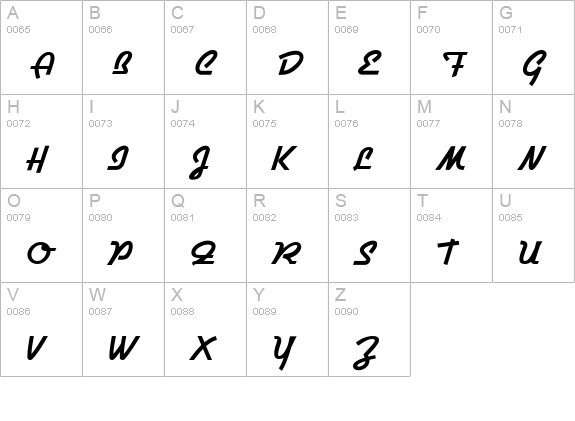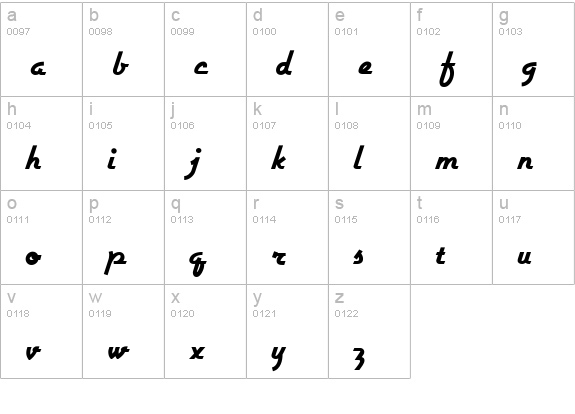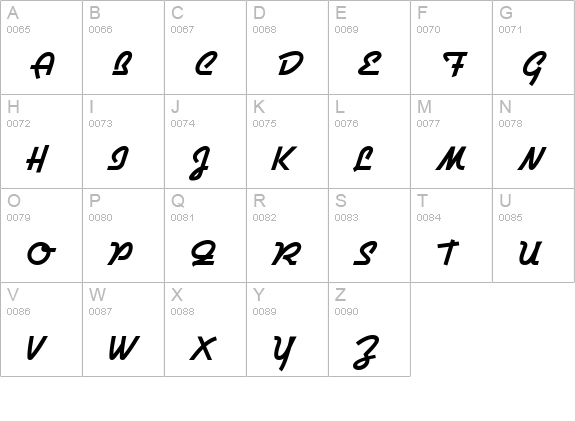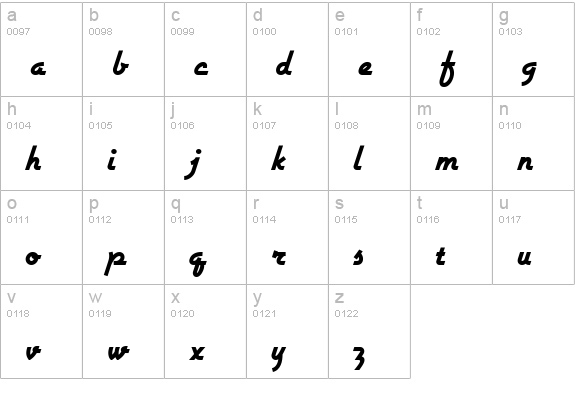
Introducing the magnificent Airstream NF font, a stunning display typeface that effortlessly captures the essence of adventure and nostalgia. This font is a perfect blend of modernity and vintage charm, making it an ideal choice for a wide range of creative projects. The Airstream NF font showcases a unique and stylish letterform design, with its bold strokes and smooth curves exuding confidence and elegance. Its versatility allows it to be used in various contexts, from eye-catching headlines to captivating logos and branding materials. But what truly sets Airstream NF apart is its availability as a free download at FontsMarket.com. That's right, this exceptional font is freely accessible, allowing designers and enthusiasts alike to enhance their projects without any financial constraints. This generous offering makes Airstream NF a must-have in every font library, ensuring that creativity knows no bounds. Whether you're designing a travel blog, an adventurous poster, or a retro-inspired website, Airstream NF will undoubtedly elevate your artwork to new heights. Its seamless integration into any design project, coupled with its free availability, makes it an absolute game-changer for anyone seeking to make a lasting impression. Download Airstream NF now from FontsMarket.com and unlock the door to limitless design possibilities. Let your imagination soar as you explore the captivating features and timeless appeal of this remarkable font. Discover the freedom to create without boundaries, all with the help of Airstream NF.